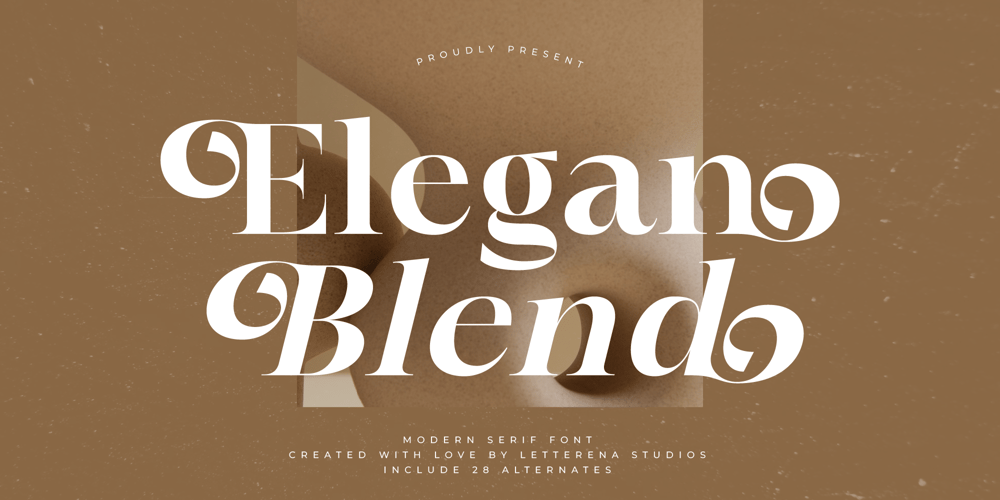
Elegan Blend
Elegan Blend font
Elegan Blend Font Family was designed by Heru Utama Putra and published by Letterena Studios. Elegan Blend contains 2 styles and family package options. Elegan Blend is a modern and stylish serif font that marries clean lines with subtle curves for a contemporary look. Perfect for editorial designs, luxury branding, and web typography, its sophisticated presence enhances every composition. Choose Elegan Blend for a touch of modern elegance in your creative projects.